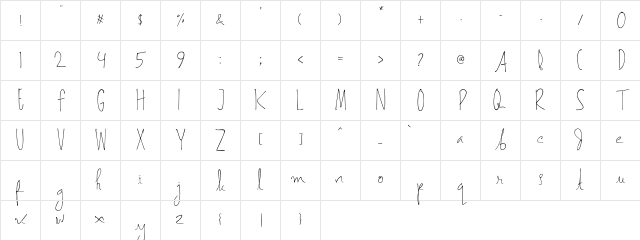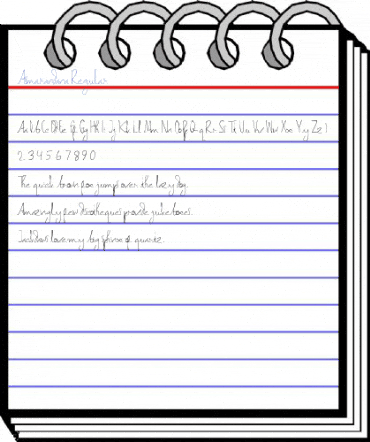
Complete Asmarandana Regular glyph index. Displaying only characters natively supported by Asmarandana Regular font.
Asmarandana is a composed and adaptable typeface that performs quietly and consistently across a wide range of design contexts.